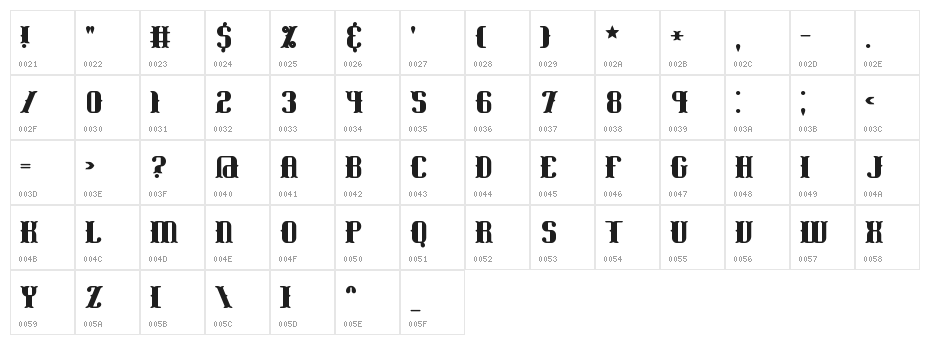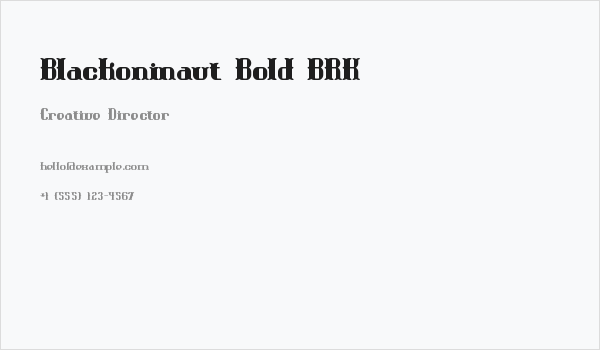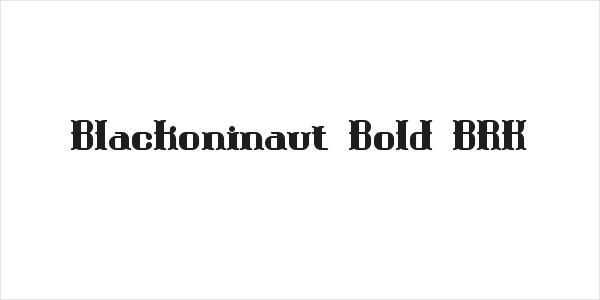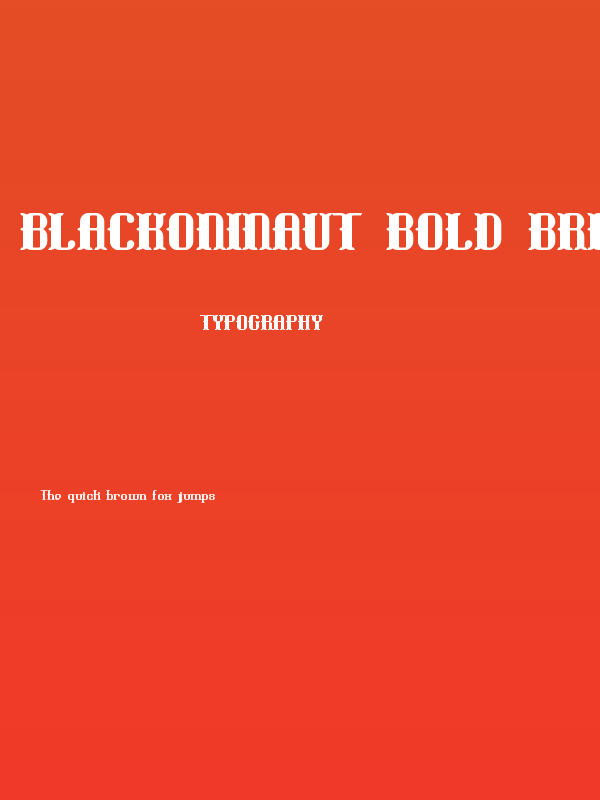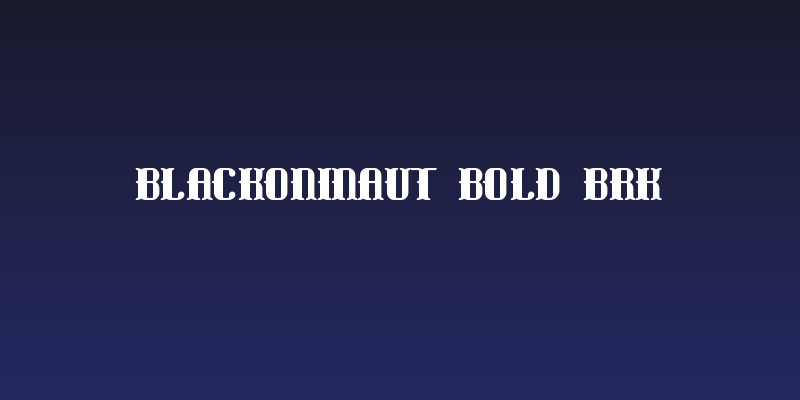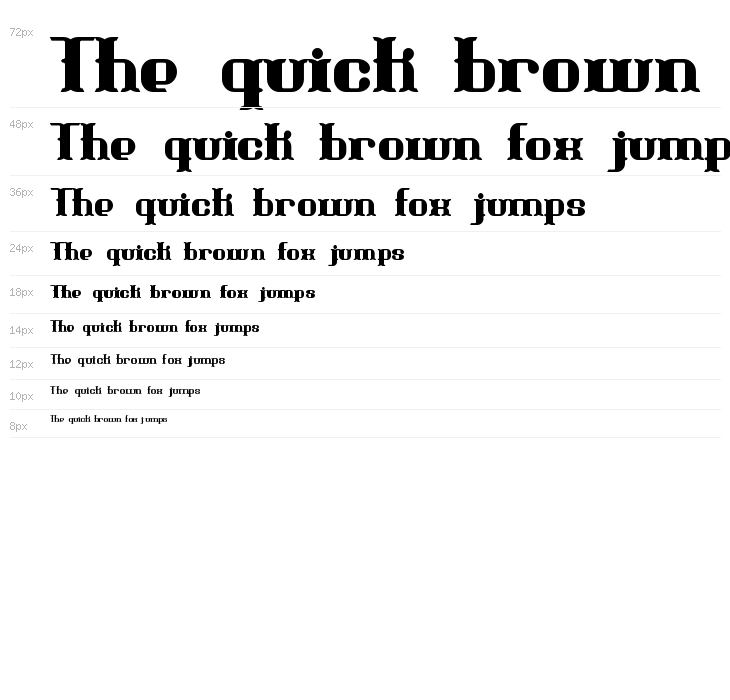
Blackoninaut Bold BRK Font
Blackoninaut Bold BRK Description
This font exhibits a bold, decorative style with a strong presence. The characters are designed with a blackletter influence, featuring thick strokes and sharp, angular edges. The uppercase and lowercase letters maintain a consistent style, with intricate details that give the font a distinct, gothic appearance. The numbers and special characters follow the same design principles, ensuring uniformity across all glyphs. This font is ideal for projects that require a dramatic and eye-catching typeface, such as posters, logos, or themed event invitations.
Proposed ProjectsIdeal for posters, logos, themed event invitations, and any project needing a dramatic typeface.